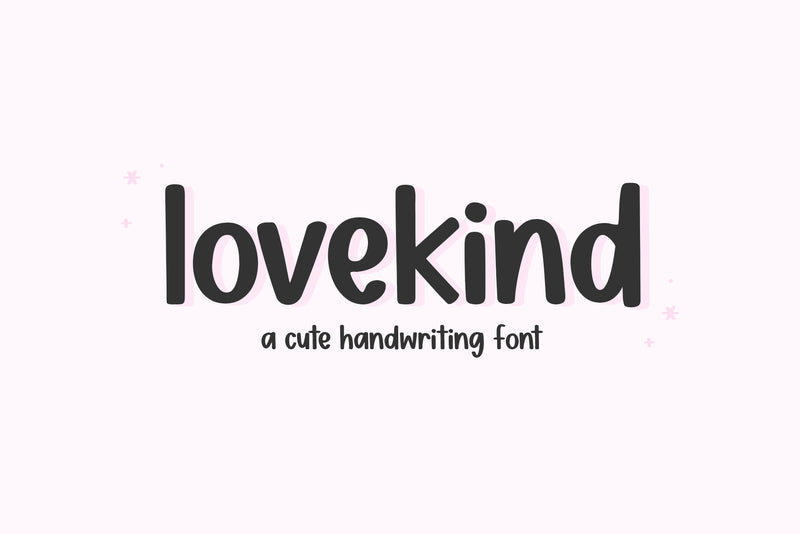
Lovekind - Cute Handwritten Font
Lovekind is a cute handwriting font.
This font is perfect for cricut projects, quotes, goodnotes, planners, handwritten notes, logos, teachers and more!